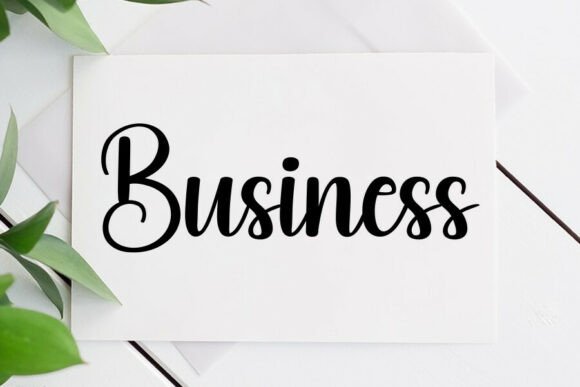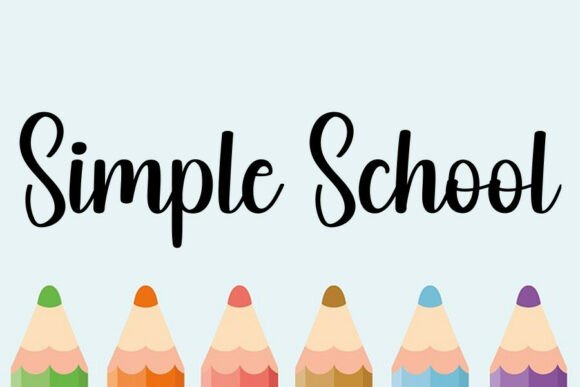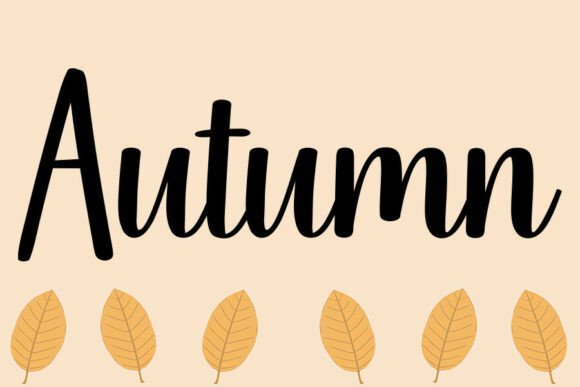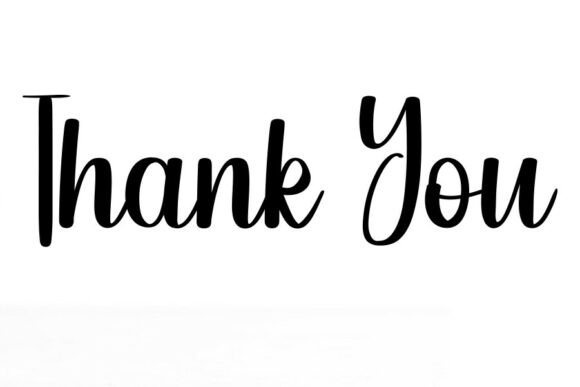
Biscuit Font: The Sweet and Elegant Choice for Your Design Projects
Are you looking for a font that adds a touch of sweetness and romance to your design projects? Look no further than the Biscuit Font! This beautiful, cursive handwritten font is perfect for a variety of design ideas and is sure to make your projects stand out.
What is Biscuit Font?
Biscuit Font is a sweet and cursive handwritten font that is designed to add a touch of elegance and sophistication to your designs. With its gentle and flowing curves, this font is perfect for creating beautiful and eye-catching designs that are sure to impress.
Characteristics of Biscuit Font
Biscuit Font has several characteristics that make it a great choice for designers and crafters. Some of its key features include:
- Sweet and Cursive: Biscuit Font has a sweet and cursive design that adds a touch of romance and elegance to your designs.
- Handwritten: This font has a handwritten feel that gives it a personal and unique touch.
- Elegant and Sophisticated: Biscuit Font is designed to add a touch of elegance and sophistication to your designs, making it perfect for high-end projects.
- Versatile: This font is versatile and can be used for a variety of design projects, from branding and logos to wedding designs and greeting cards.
Uses for Biscuit Font
Biscuit Font is perfect for a variety of design projects, including:
- Branding: Use Biscuit Font to create beautiful and elegant brand logos and identity designs.
- Wedding Designs: This font is perfect for wedding designs, including invitations, programs, and decorations.
- Greeting Cards: Biscuit Font is great for creating beautiful and elegant greeting cards for special occasions.
- Fashion and Lookbooks: Use this font to create stylish and sophisticated fashion designs and lookbooks.
- Marketing and Promotion: Biscuit Font is perfect for marketing and promotion materials, including brochures, flyers, and posters.
Why Choose Biscuit Font?
There are many reasons why you should choose Biscuit Font for your design projects. Some of the benefits of using this font include:
- Unique and Personal: Biscuit Font has a unique and personal touch that sets it apart from other fonts.
- Elegant and Sophisticated: This font adds a touch of elegance and sophistication to your designs, making them perfect for high-end projects.
- Versatile: Biscuit Font is versatile and can be used for a variety of design projects.
Tips for Using Biscuit Font
Here are a few tips for using Biscuit Font in your design projects:
- Pair it with Other Fonts: Biscuit Font looks great when paired with other fonts, such as sans serif fonts and script fonts.
- Use it for Headlines and Titles: This font is perfect for headlines and titles, where its elegant and sophisticated design can really shine.
- Experiment with Colors: Biscuit Font looks great in a variety of colors, so don’t be afraid to experiment and find the perfect color for your design.
Biscuit Font is a beautiful and elegant font that is perfect for designers and crafters who want to add a touch of sweetness and romance to their design projects. With its sweet and cursive design, handwritten feel, and elegant and sophisticated characteristics, this font is sure to make your projects stand out. Whether you’re creating branding designs, wedding designs, or greeting cards, Biscuit Font is a great choice. So why wait? Download Biscuit Font today and start creating beautiful and elegant designs!